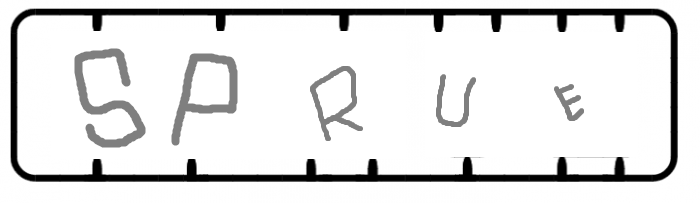
• Its nothing original, just experiment how could it be done with bricks.
Use brackets to enclose the start and back of the line.
gonna pop out the letters real quick
@digitalio-2 hehe, dont forget to sand the cut surfaces smooth afterwards.
the wha- OW
i never thid th- OUCH
it barely hur- AAAAAAAA